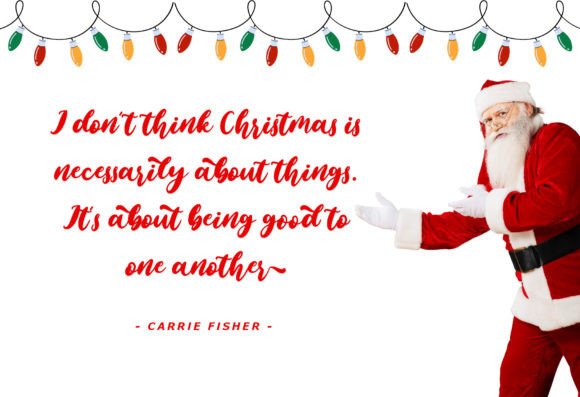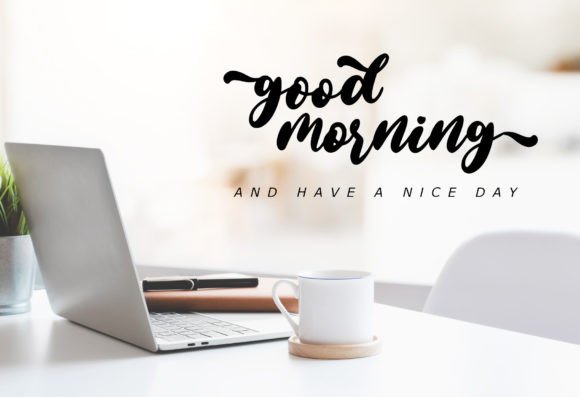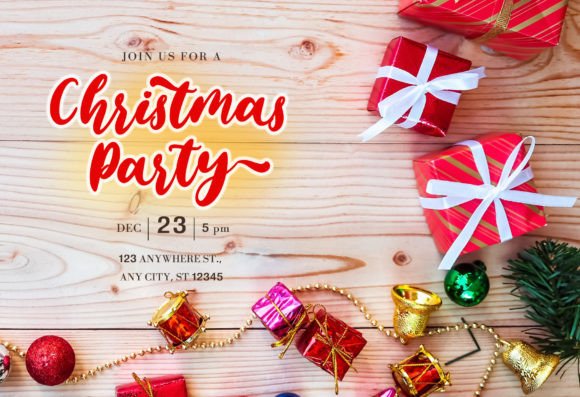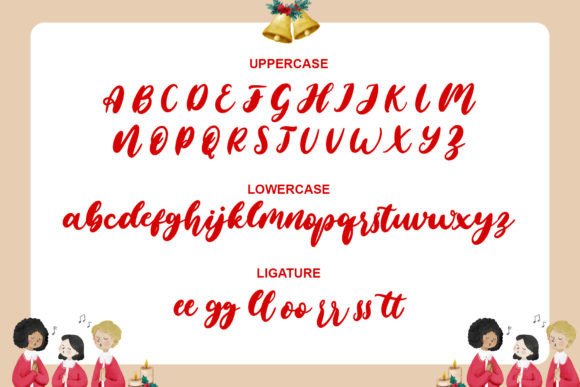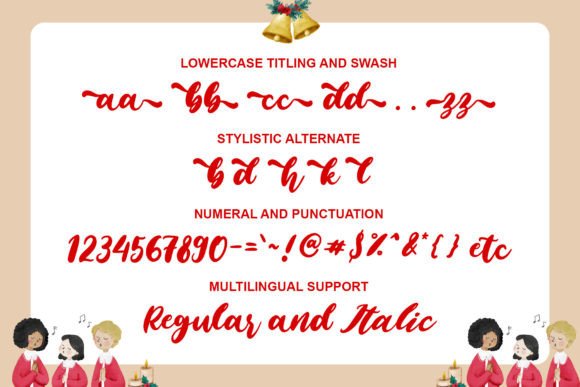
Introduction to Santa Blessing Font
Santa Blessing is a dazzling and timeless handwritten font.
It is the best choice for all your Christmas season projects This font is PUA encoded which means you can access all the glyphs and sweeps easily.
Key Features of Santa Blessing Font
Why Choose Santa Blessing Font?